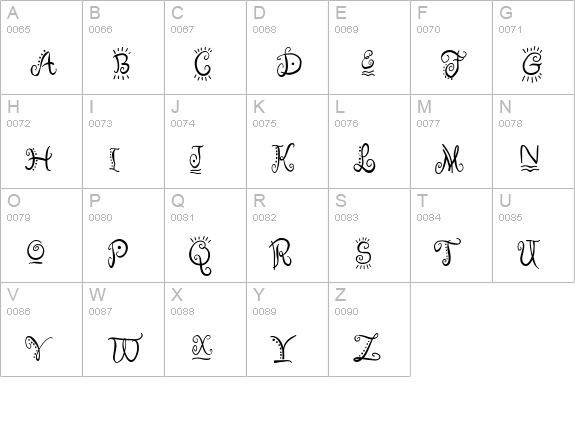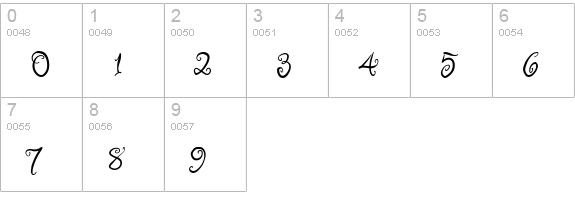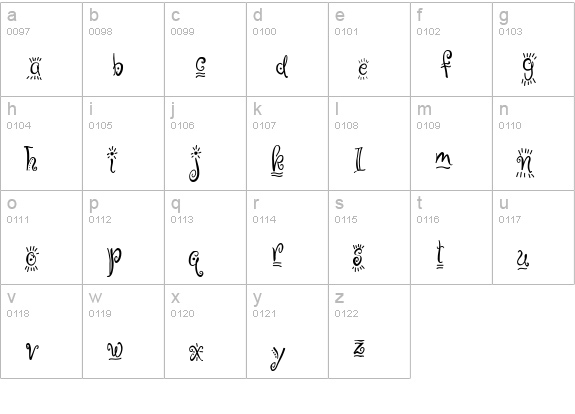
RugeBoogie Abnormal Font Details
RugeBoogie Abnormal font is a unique and eye-catching typeface that is sure to make your designs stand out. With its quirky and playful style, this font is perfect for adding a touch of fun to any project. The irregular shapes and unexpected curves give RugeBoogie Abnormal a distinct and unconventional look that will captivate your audience. What's even better is that RugeBoogie Abnormal font is available for free download at FontsMarket.com. Yes, you heard that right - you can get your hands on this one-of-a-kind font without spending a dime. So why wait? Add a little abnormality to your designs today with RugeBoogie Abnormal font!